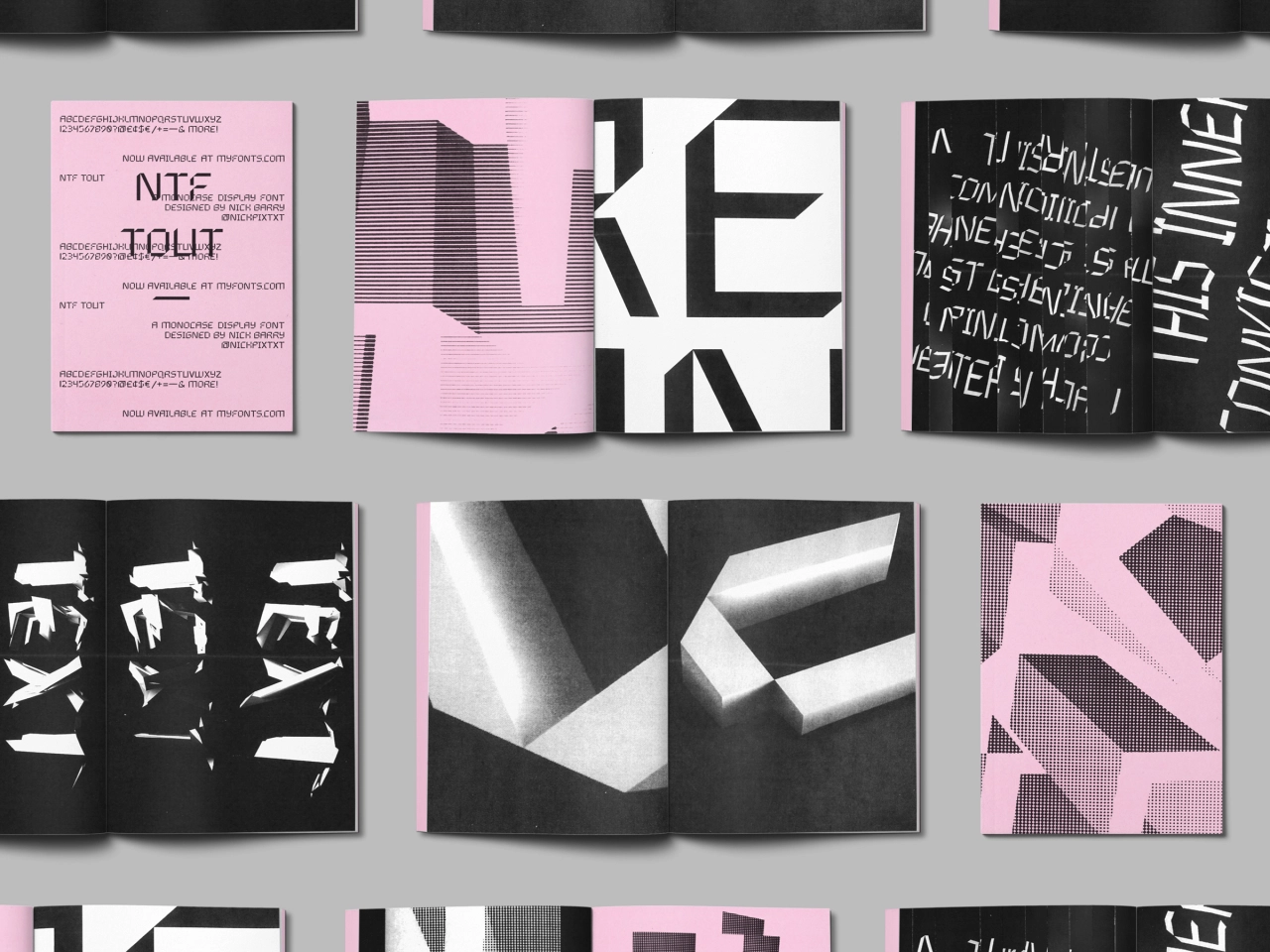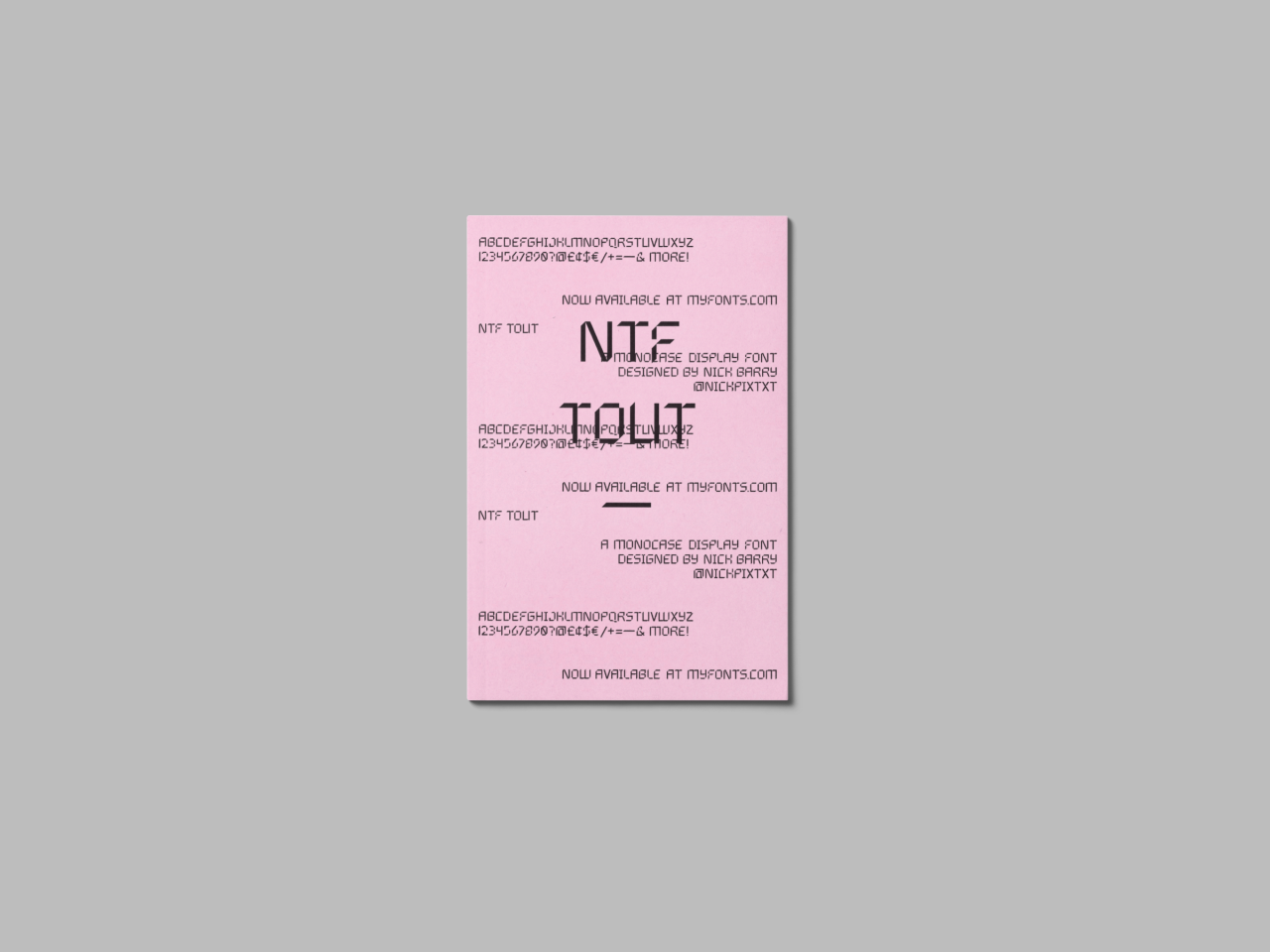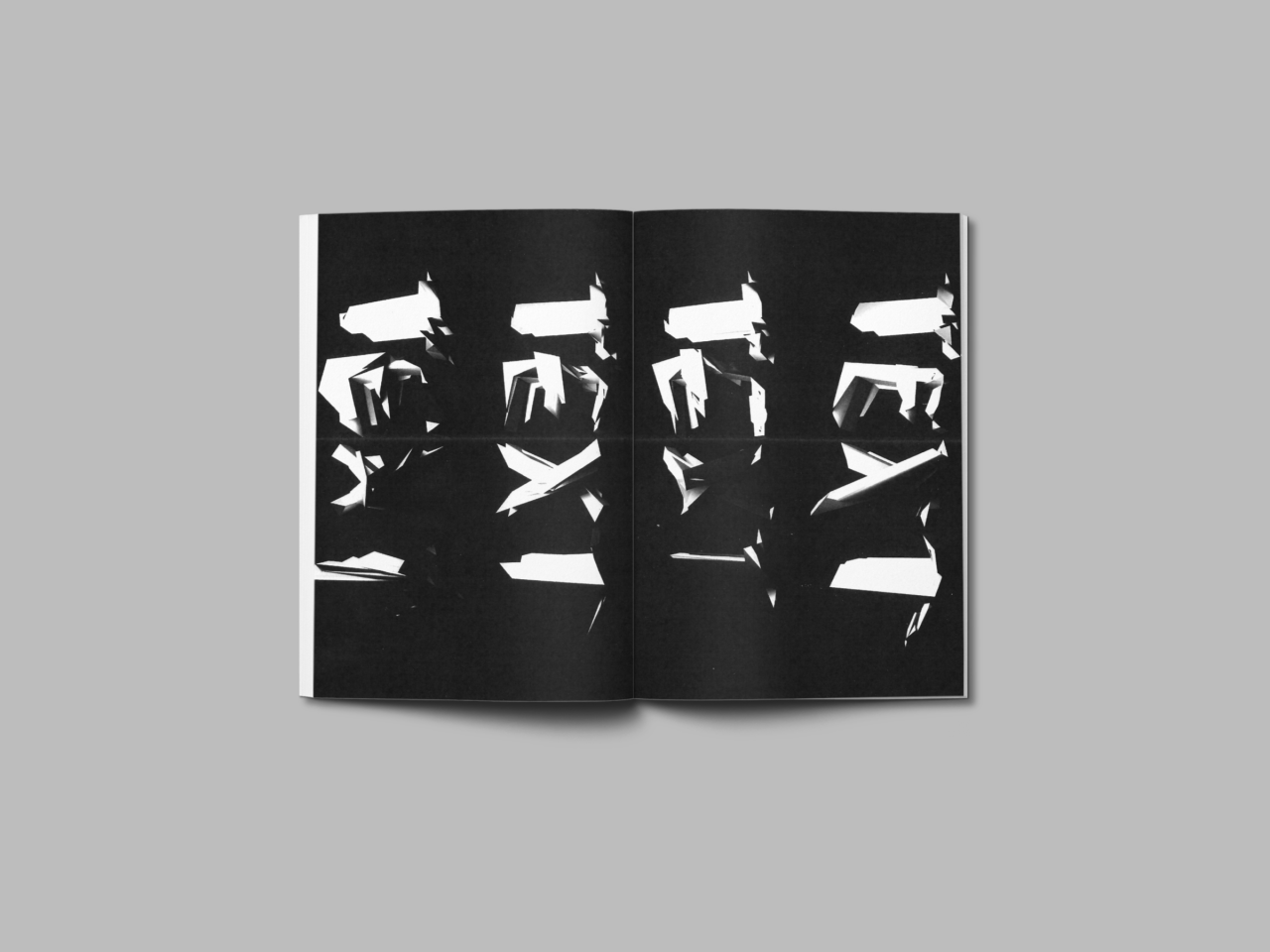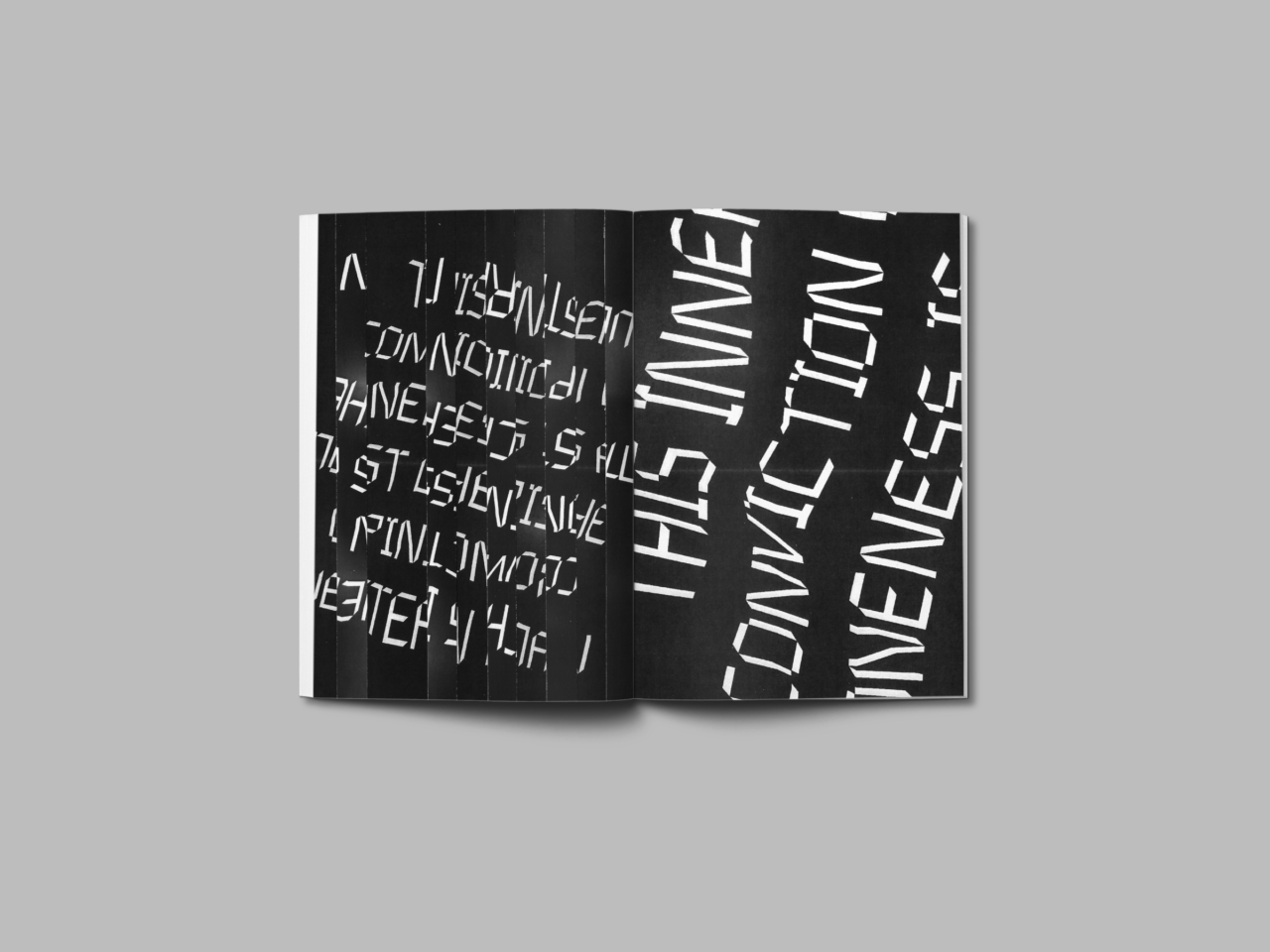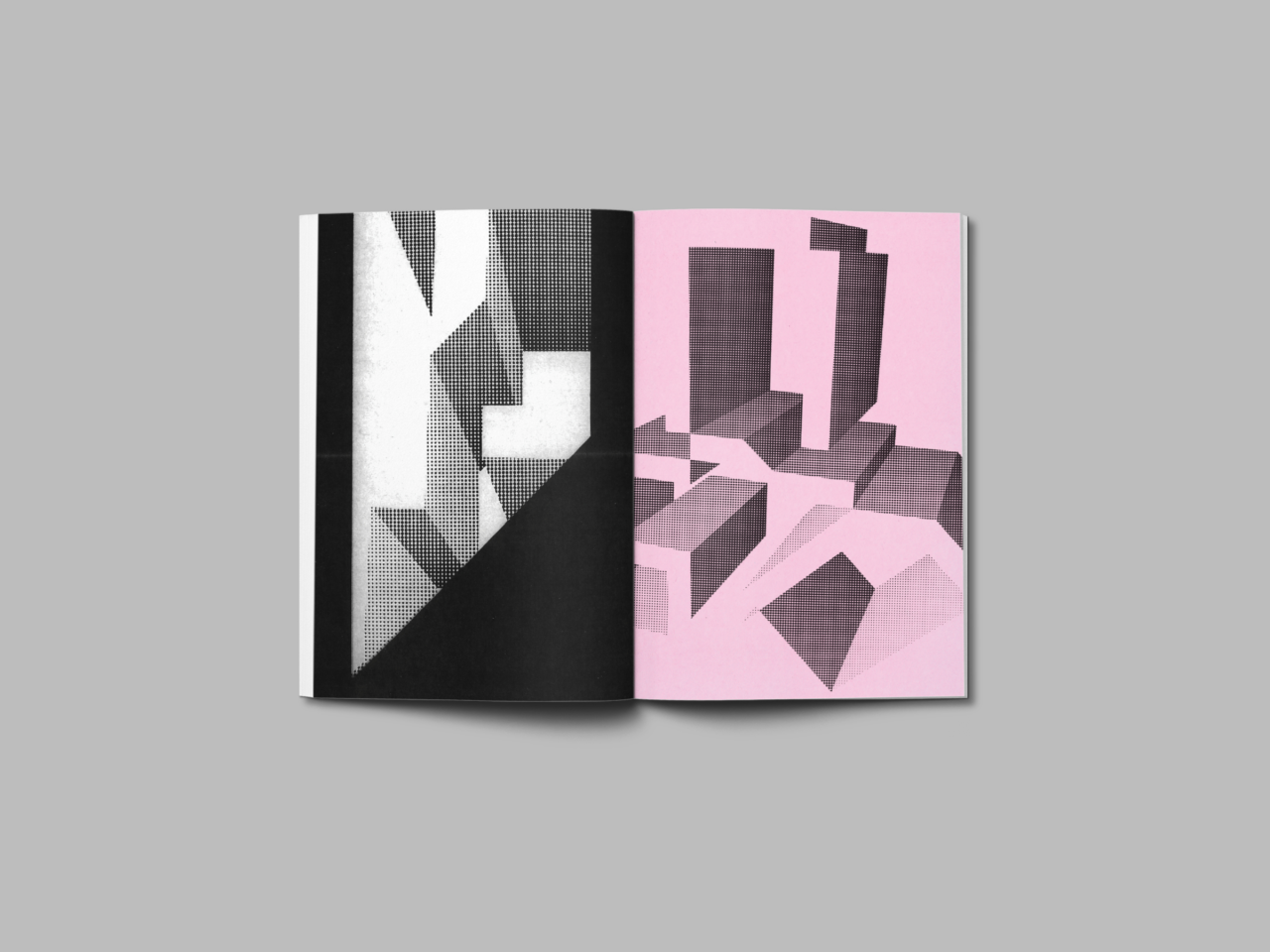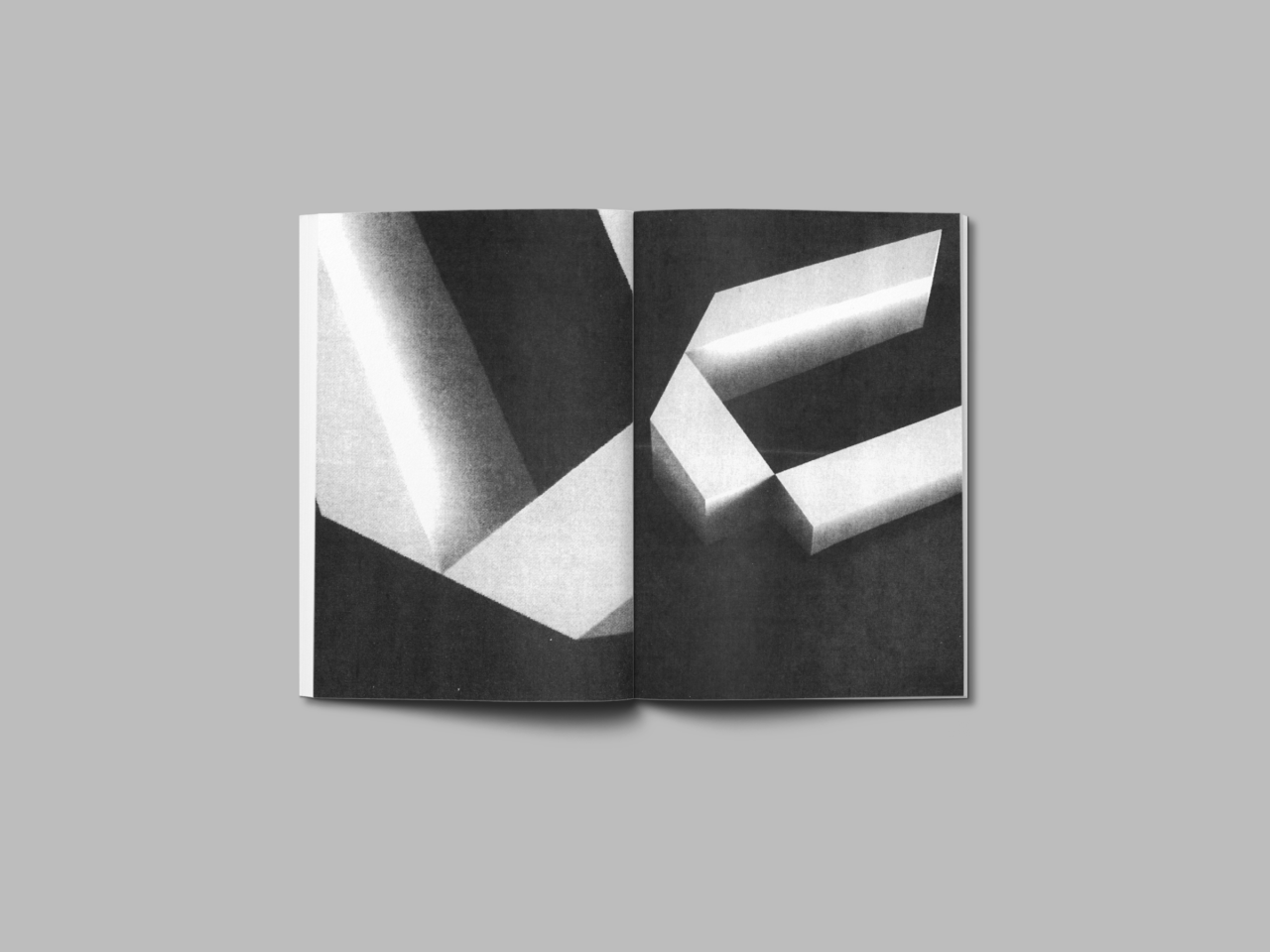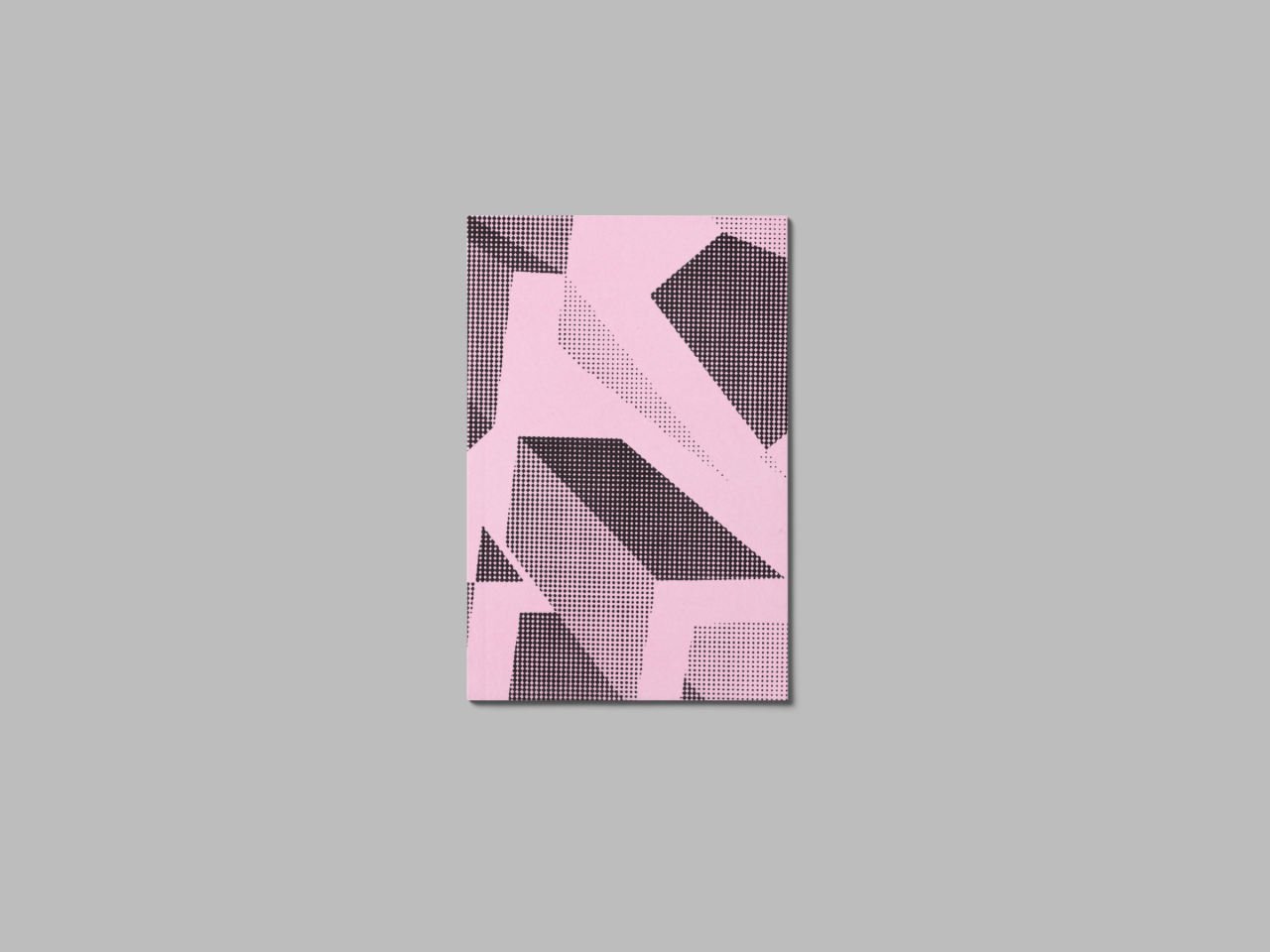
Designer Nick Barry releases NTF Tout, a display font inspired by calculators and Chinese characters
British designer Nick Barry has released NTF Tout, a display typeface inspired by the Chinese characters he learnt to write with when he lived in China.
Available via MyFonts, it began "by experimenting with simplified blackletter characters, then eliminated any of the filigree and decorative strokes" and looks "similar to the typeface of a calculator," as Nick puts it. "But still employing the thick strokes and 45-degree angles of a blackletter."
"As I designed each individual letterform, I started to realise how modular each one could be. Like Chinese characters, each is made up of a number of repeated strokes. Once I established these strokes as the letterforms building blocks things started to move a lot faster."
Nick did a lot of research into type design applications and found Glyphs Mini checked all his boxes for designing the typeface. "One of the most fulfilling things about using it is that immediately after you've created your first vector glyph (character) you can begin to type with it. So, at the hit of a key, a letter that took hours to design will pop up in a matter of nanoseconds. Imagine the joy of typing an entire word. This got me hooked."
On completing NTF Tout, Nick decided to create a zine. He adds: "While experimenting for the zine's content, there was a real disconnect between the preciseness of the letterforms I'd created digitally and anything I’d be able to achieve making a DIY zine. As a result, I decided the zine would both dismantle and celebrate the details I'd built for months."
Does he feel he got a lot out of his latest side venture? "The typeface definitely has a science-fiction quality to it and I love how the diagonals almost give it a three-dimensional appearance. From designing this typeface I can definitely better appreciate the beauty within the negative space of letterforms. And I learned a lot of lessons about best practices in typeface design through this process."